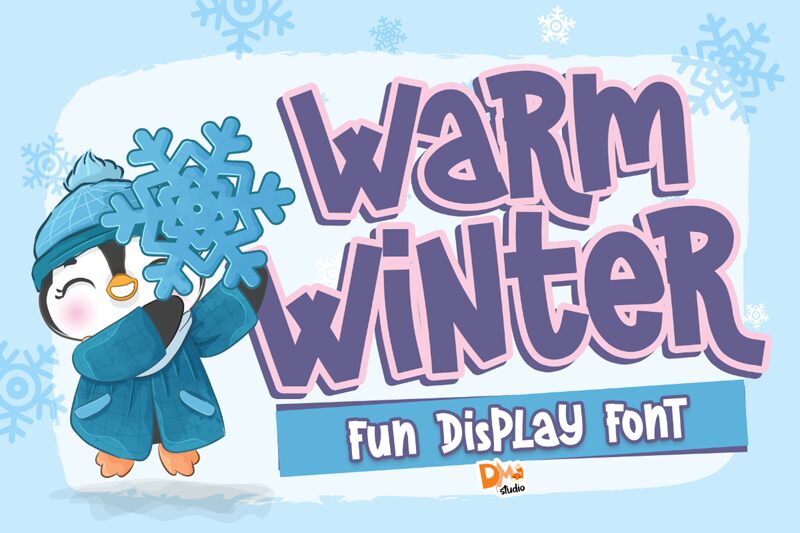
Warm Winter
Warm Winter font by Dm Letter Studio - Dimas Prasetyo is a free hand-drawn display font. Its chunky, softly jagged forms feel like cut paper warmed by a cocoa-stained brush, with a lively bounce that keeps lines friendly and upbeat. The strokes are full and inky, giving headlines a cozy, handcrafted presence without slipping into messy.
Using Warm Winter, your seasonal branding comes to life: holiday cards, gift tags, hot chocolate or bakery packaging, kids’ book covers, café menus, event posters, and cheerful social posts. The generous counters read well at large sizes, while the playful rhythm adds charm in short phrases. Pair this free font with a clean geometric sans for body copy and tighten tracking slightly to amplify its snug, bundled-up vibe.